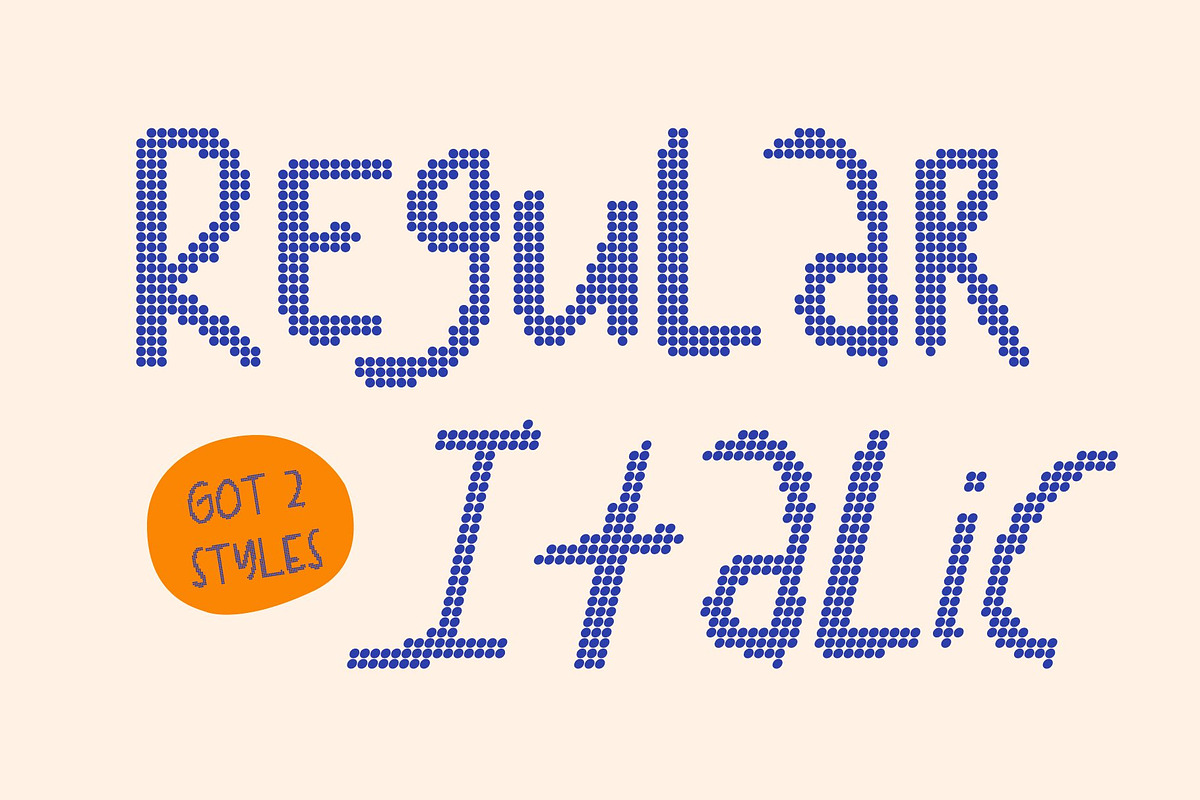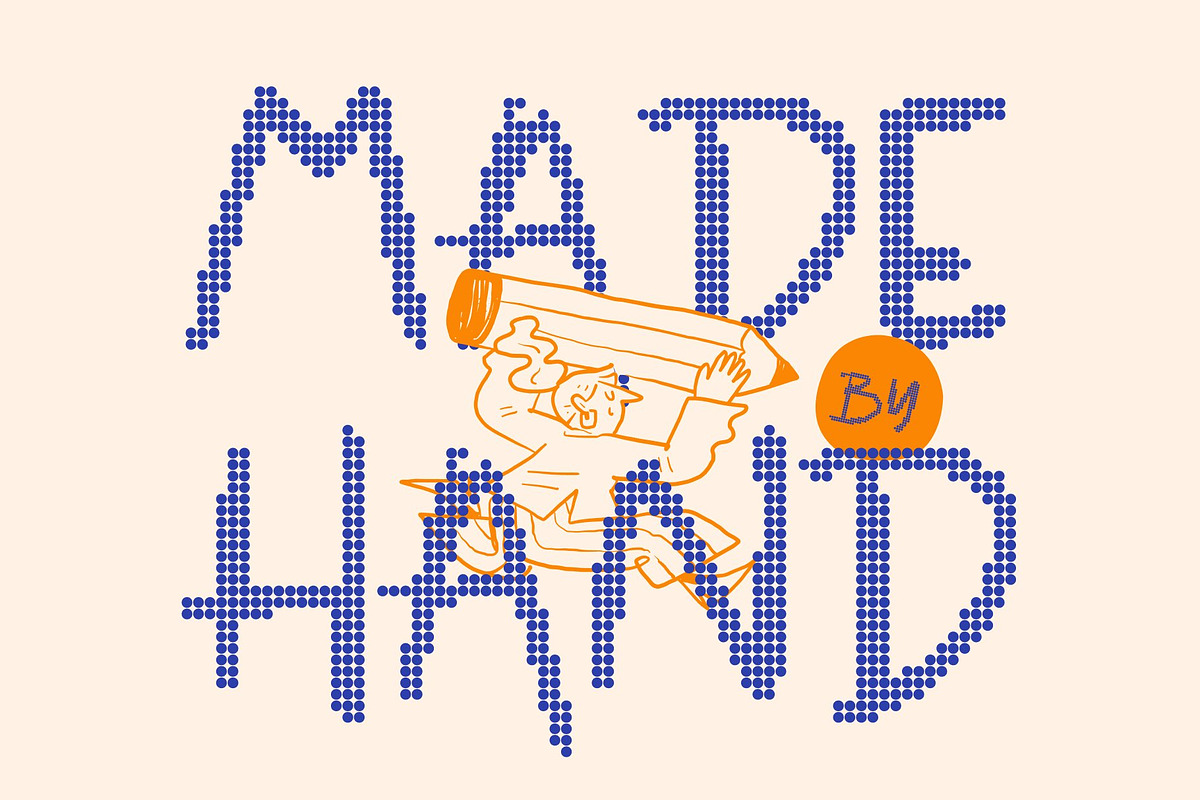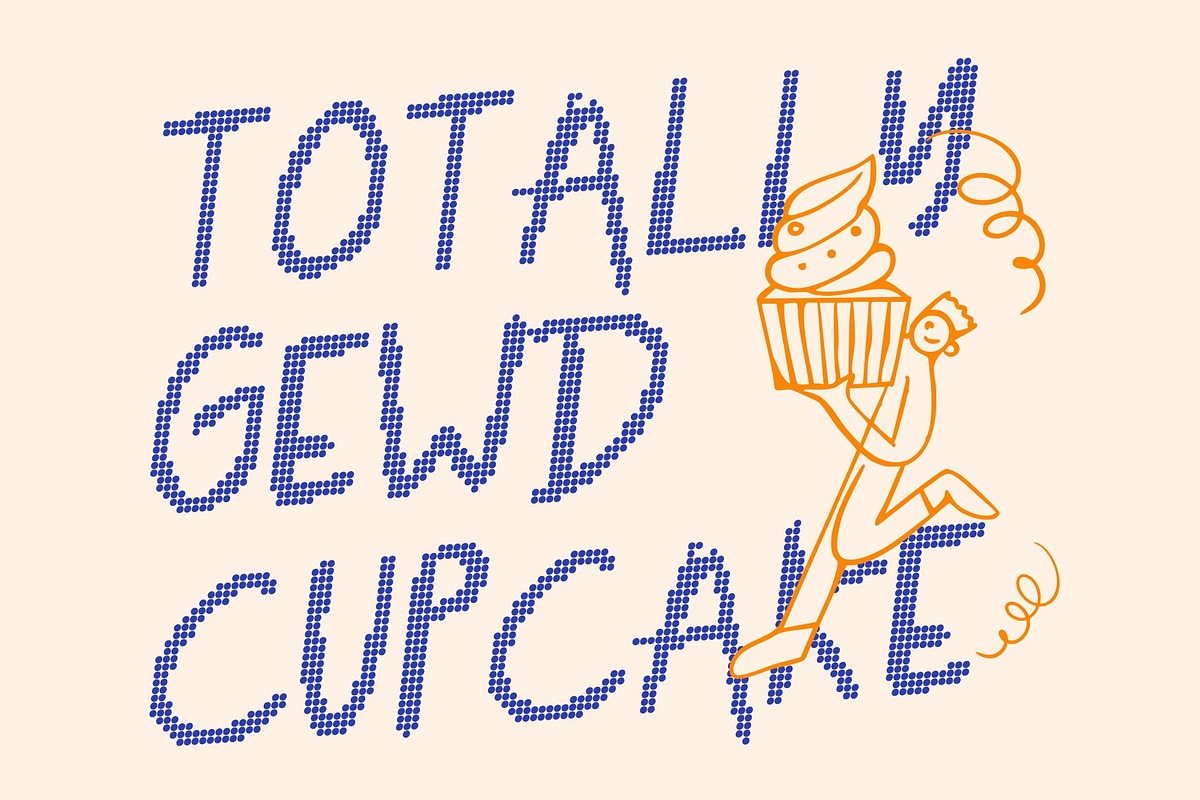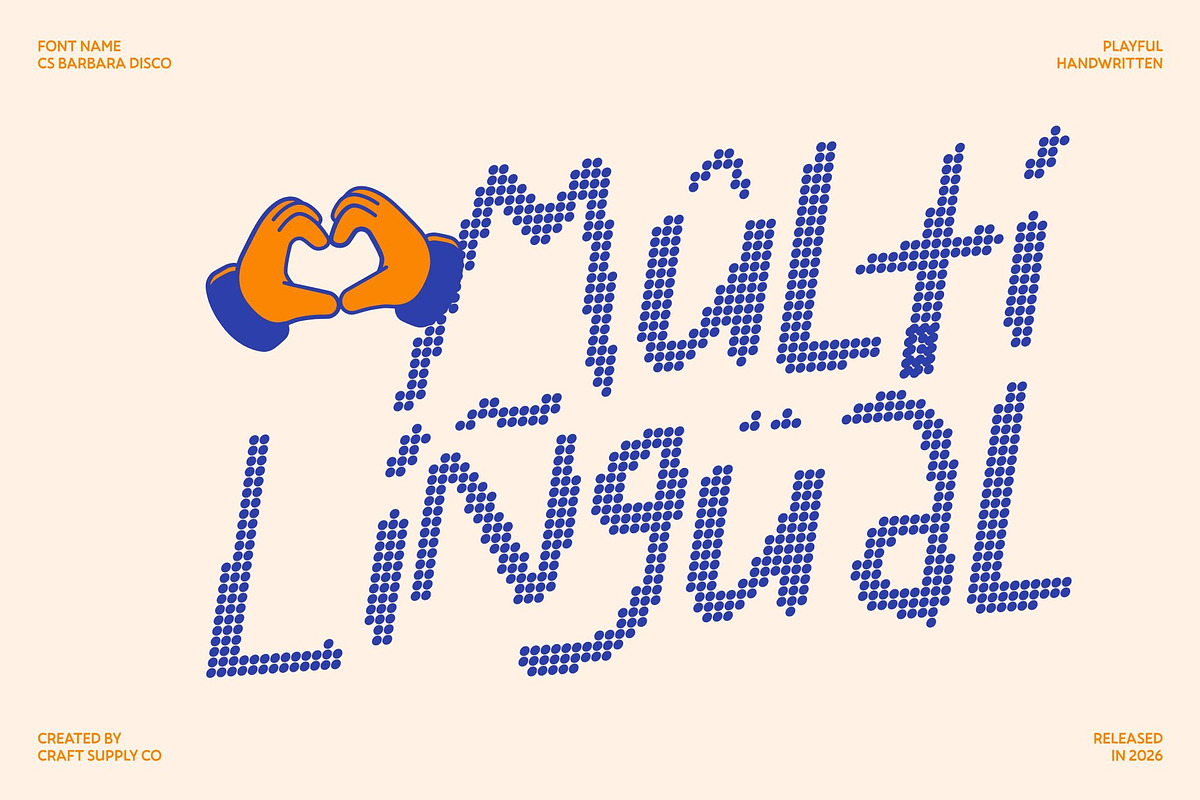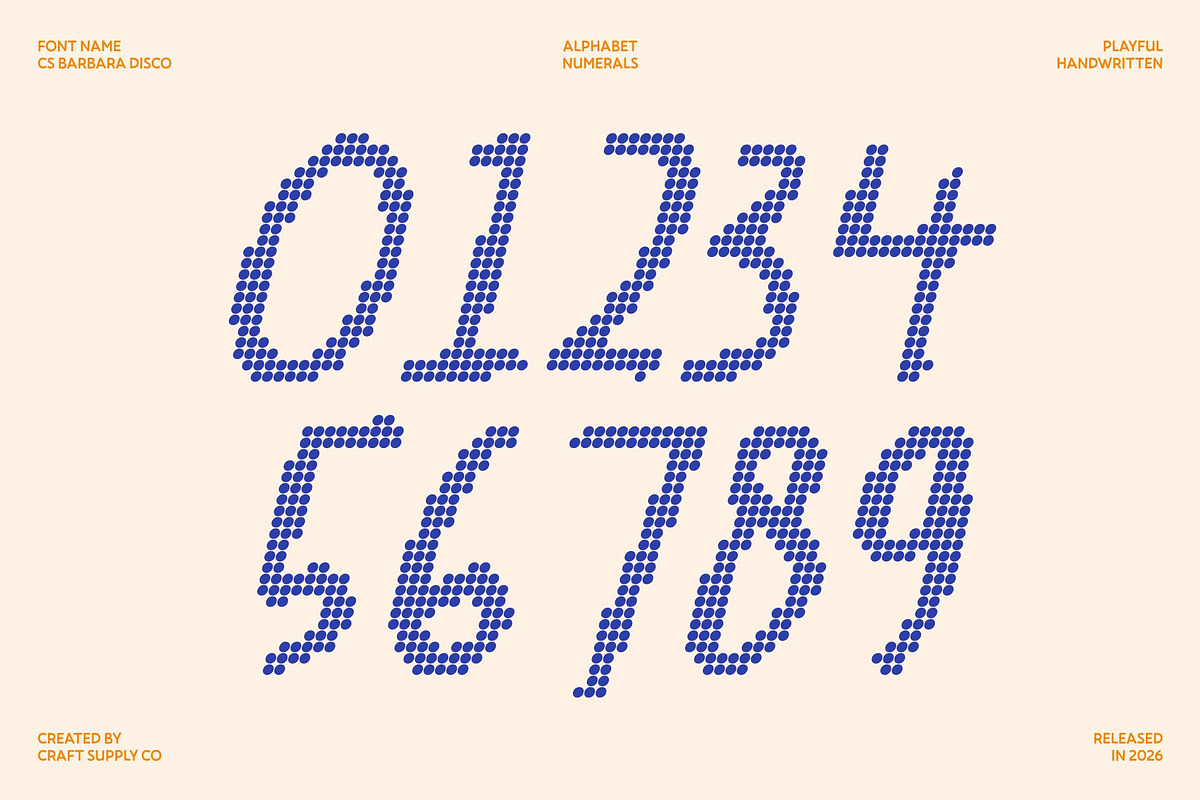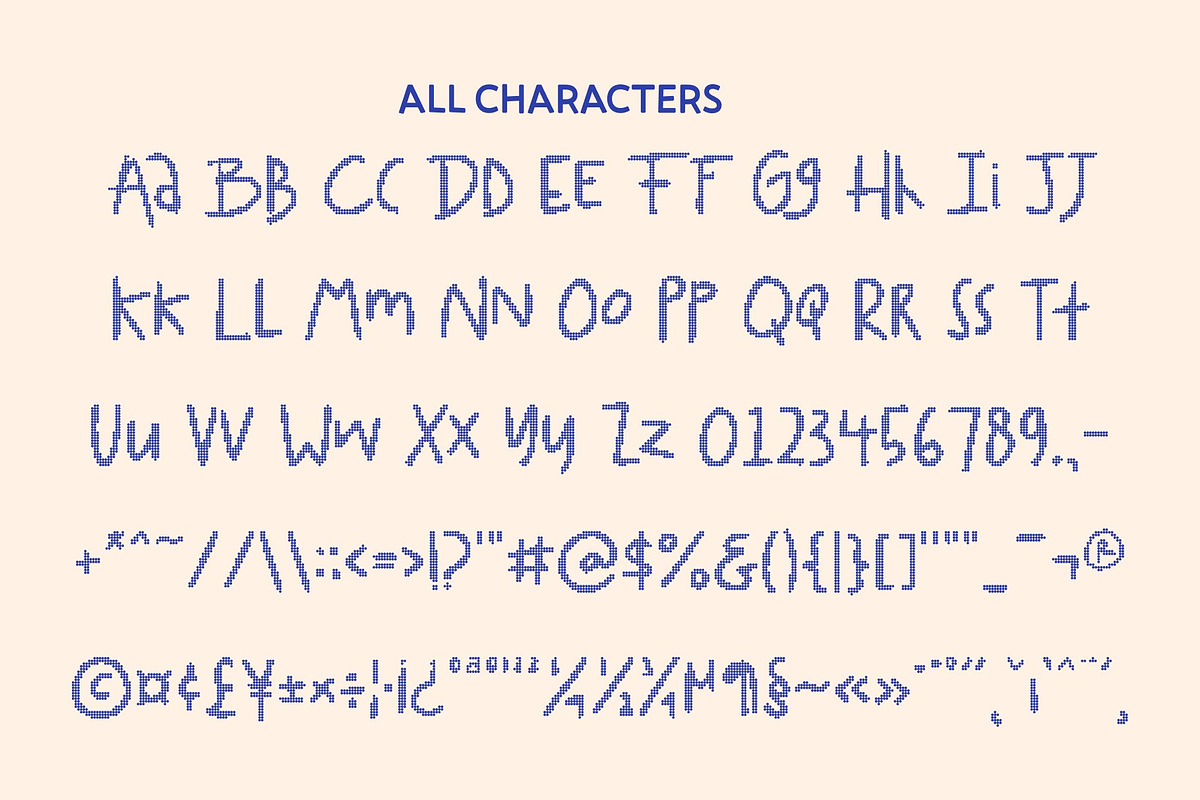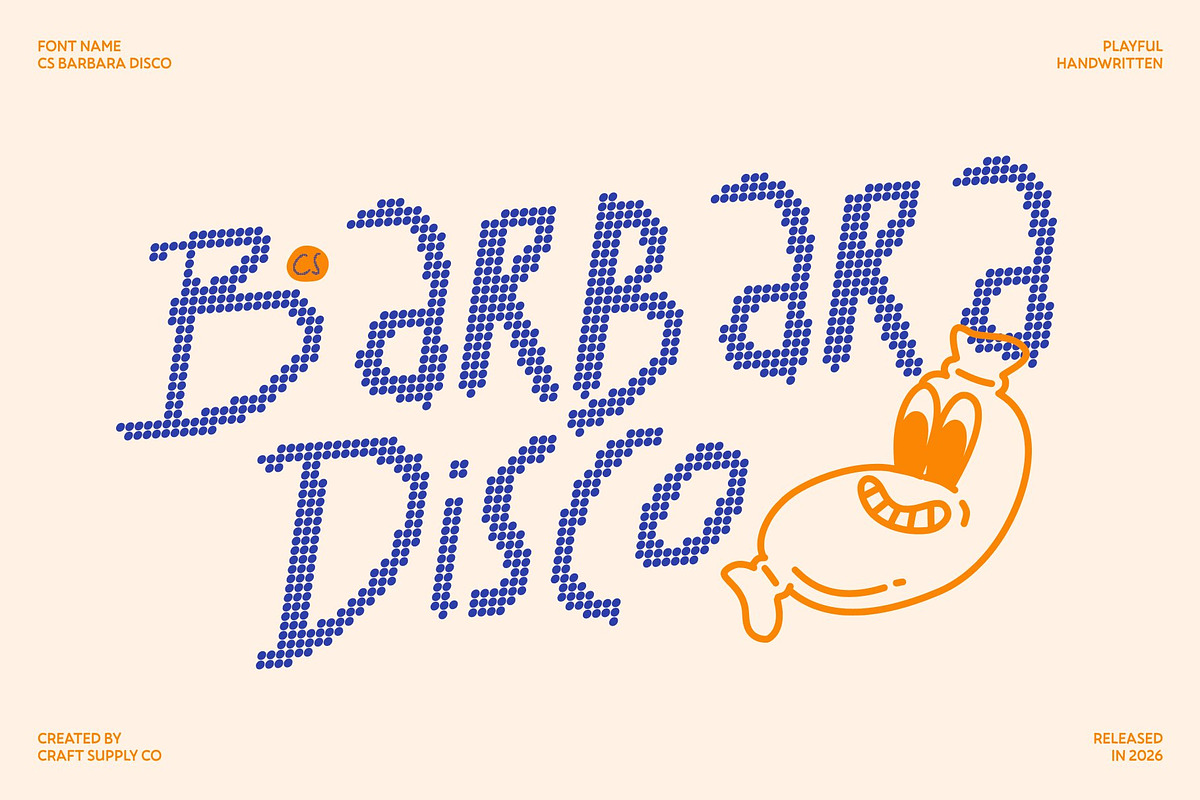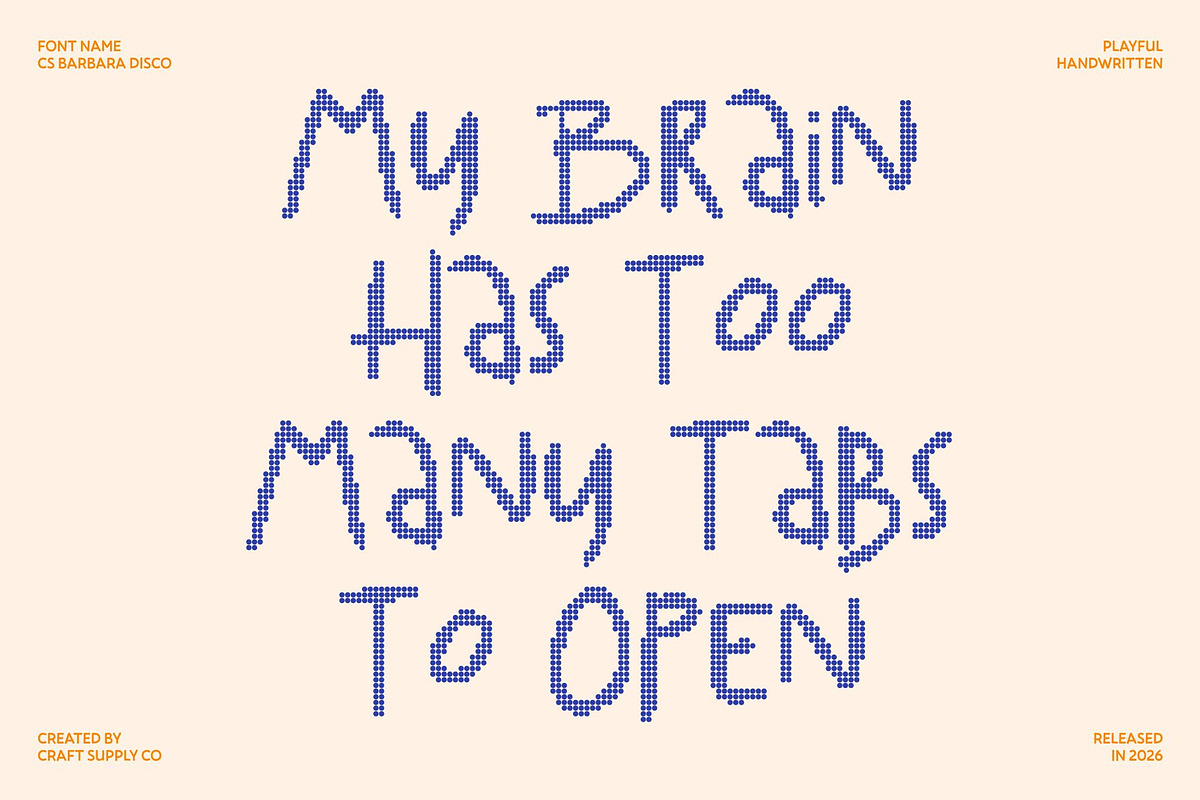
CS Barbara Disco
CS Barbara Disco – A Fun Handwritten Font Full of Energy
Playful Energy with a Disco Bounce This is a lively handwritten font that radiates fun, positivity, and rhythmic charm. With its rounded strokes and flowing movement, it captures the carefree spirit of handwritten expression now infused with a subtle disco bounce. Every letter feels dynamic and cheerful, bringing warmth and vibrant personality to any design.
Friendly Shapes for Cute and Joyful Designs The soft curves and smooth, rounded forms give this font an approachable and lovable character. Its playful structure makes it ideal for youth-oriented branding, children’s projects, and cute creative concepts. The friendly letterforms create a happy visual rhythm that feels inviting, expressive, and full of charm.
Perfect for Greeting Cards and Cheerful Branding This font shines in greeting cards, invitations, party designs, and celebratory visuals. It adds a welcoming, upbeat tone that feels genuine and heartwarming. For branding, it helps communicate friendliness and accessibility perfect for cafés, kids’ products, lifestyle brands, and creative businesses that want to feel warm and joyful.
Versatile for Casual, Modern, and Everyday Projects While naturally playful, this font remains flexible across various applications from posters and packaging to digital content and social media graphics. Its disco-inspired liveliness combined with a clean handwritten style ensures a casual, modern aesthetic that always feels fresh and engaging.
CS Barbara Disco Regular
CS Barbara Disco Italic